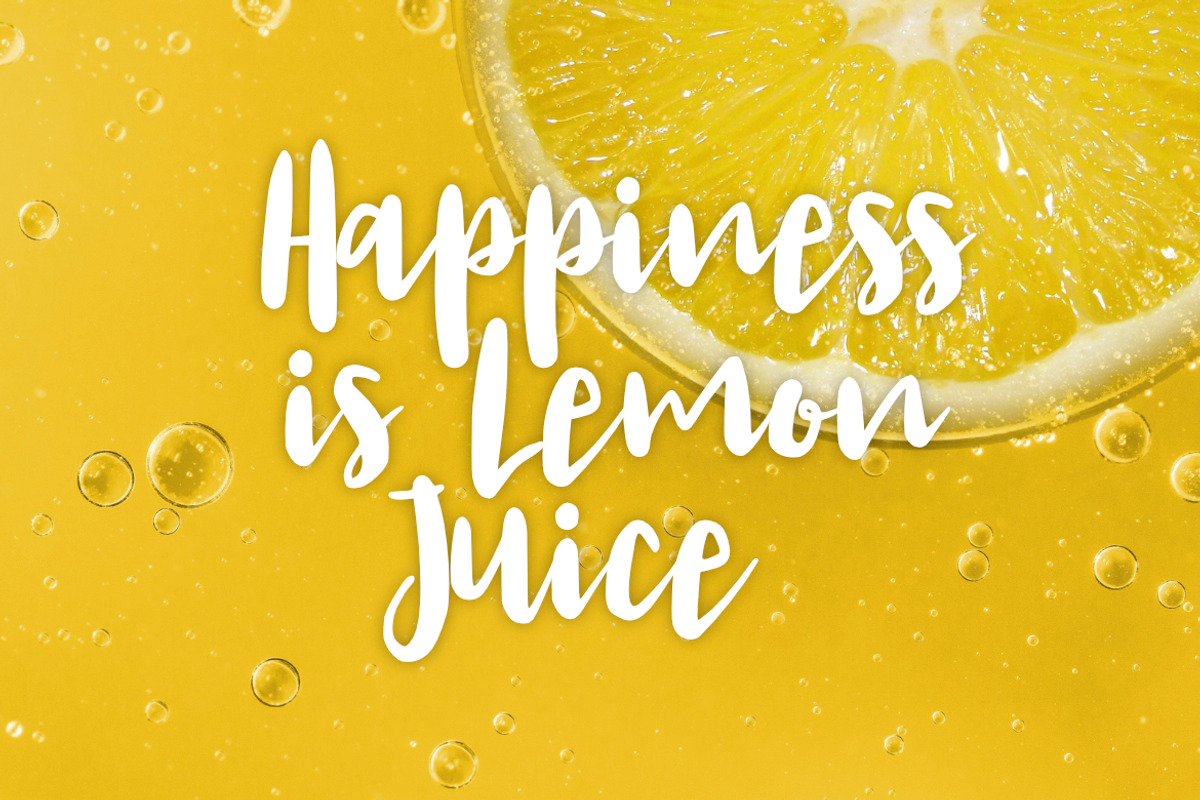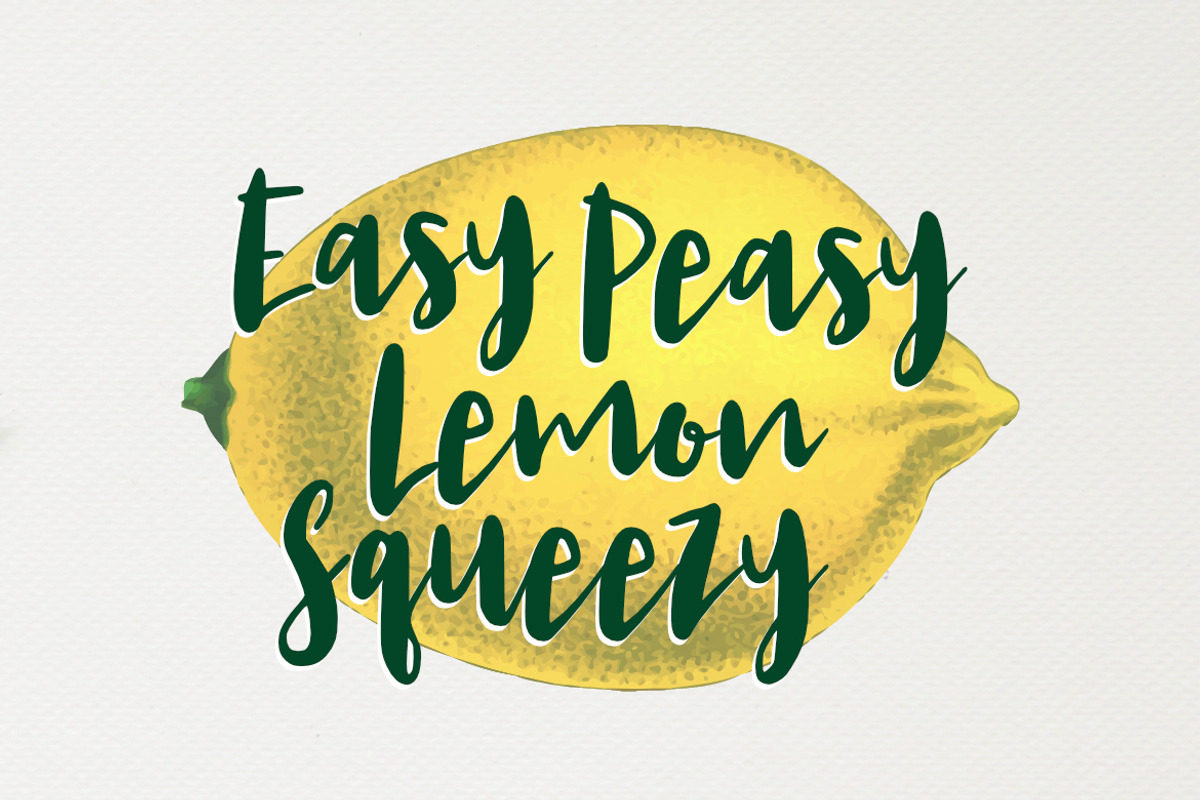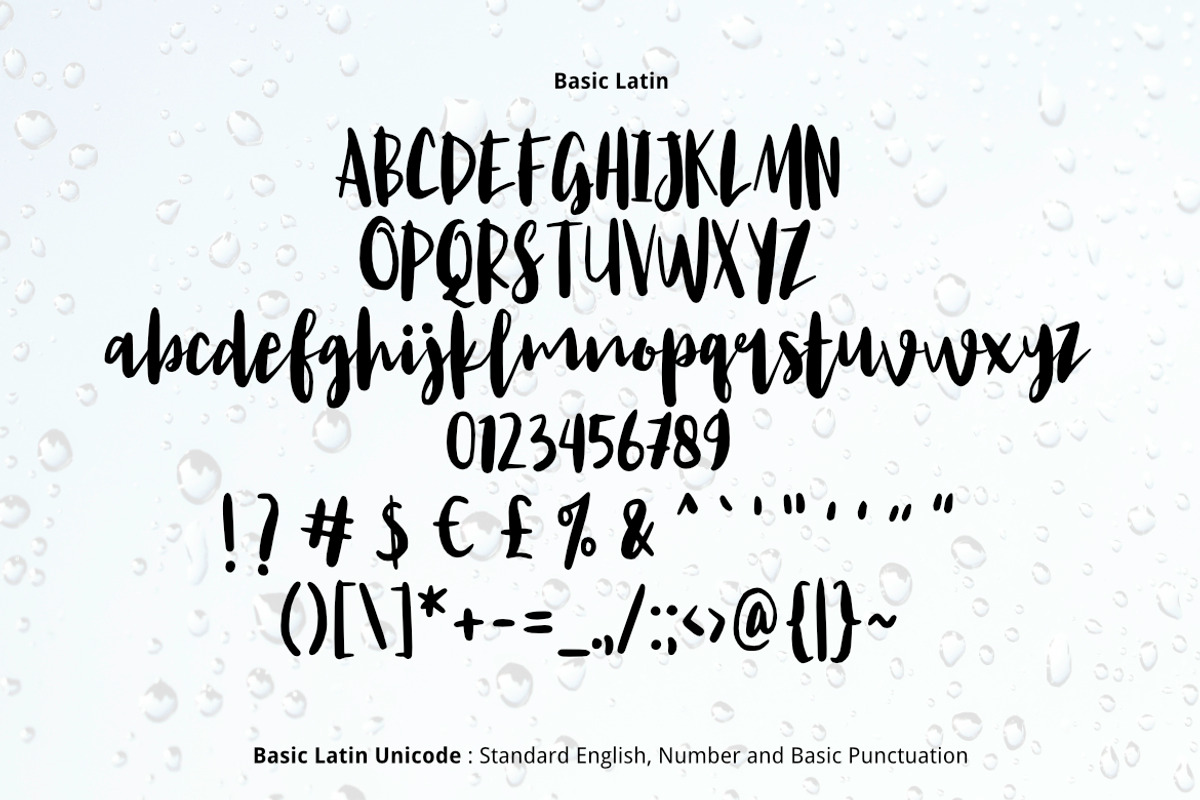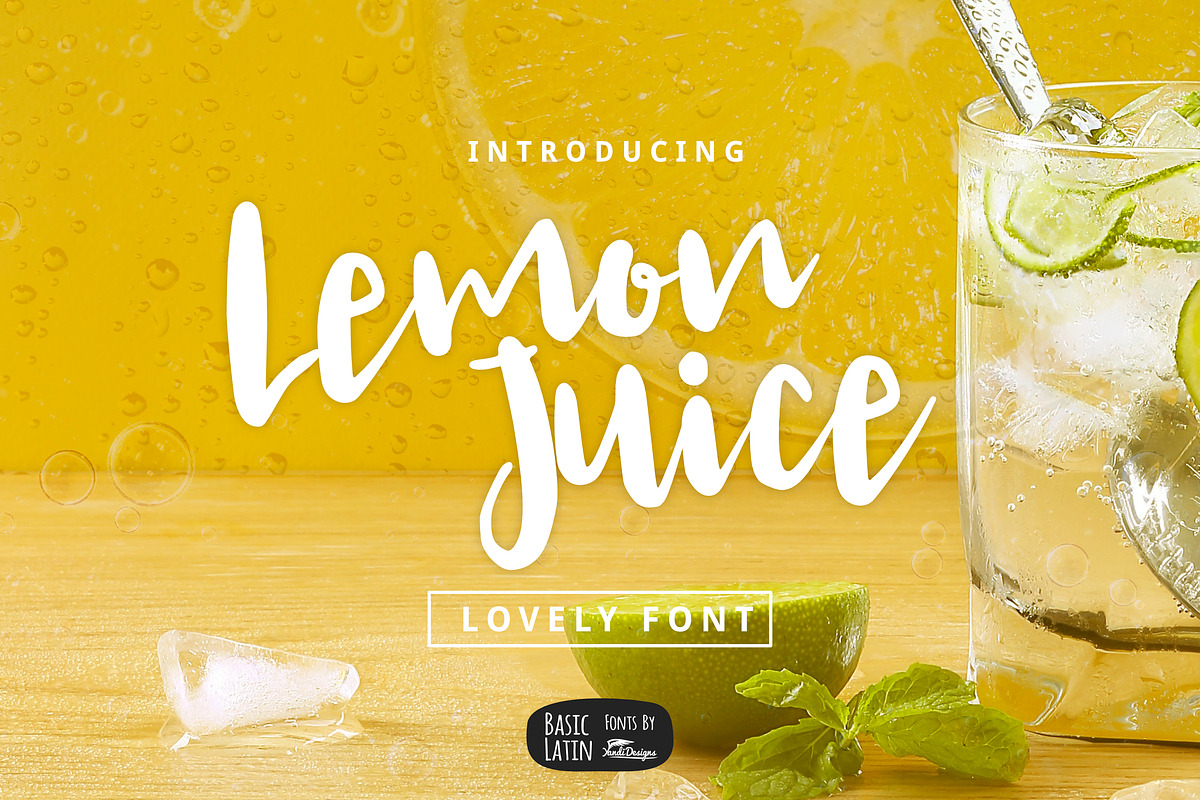
Lemon Juice Script Font
Lemon Juice font is simple beautiful multipurpose handmade font , suitable for many project children book, quotes, logo , heading , title etc.
Why Lemon Juice Script Font is worth a look
Lemon Juice Script Font by YandiDesigns fits naturally into Branding, posters, packaging, typography.